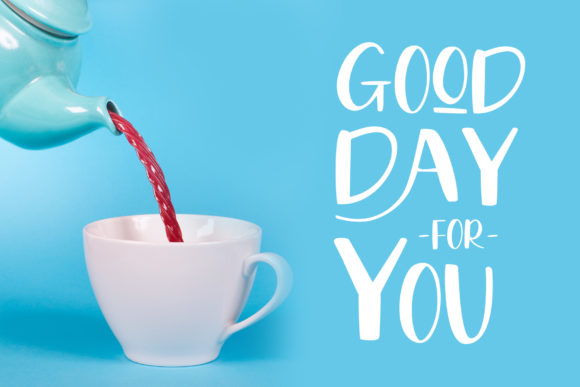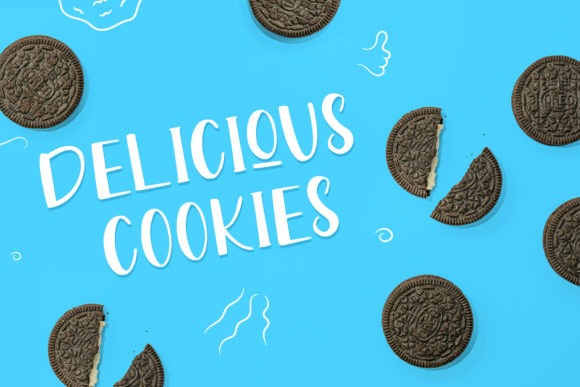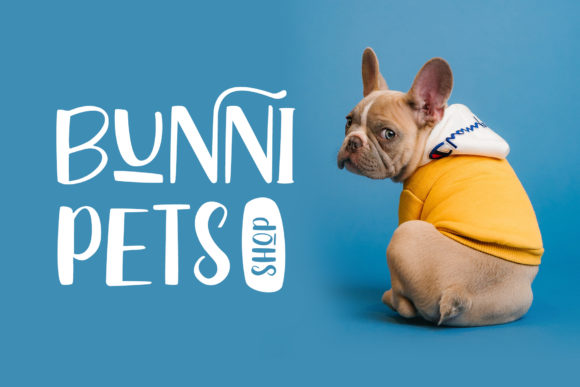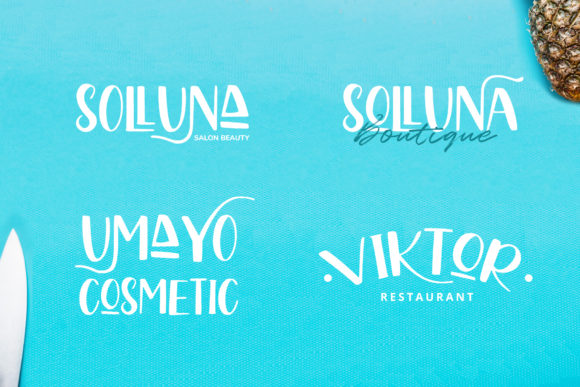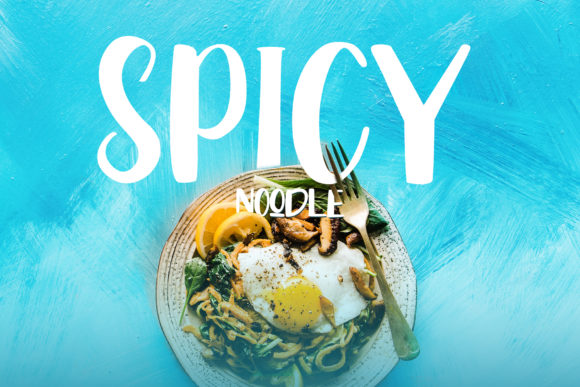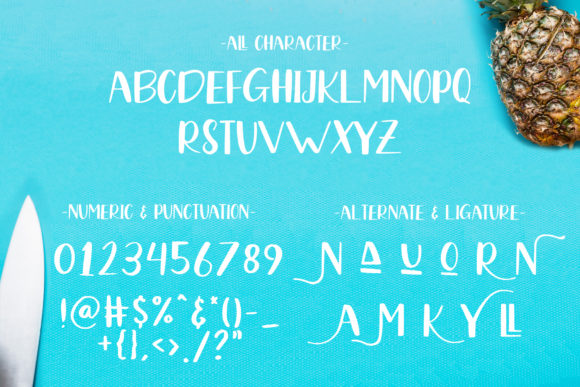
Introduction to Rollena Font
Have you ever stared at a blank canvas, waiting for the perfect font to spark your creative project? For designers, finding that elusive font can be a game-changer. It’s the difference between a good design and a great one. And that’s exactly what the Rollena Font offers – a chance to elevate your work and make it truly stand out.
With its friendly feel and versatility, the Rollena Font is a valuable design resource for any creative project. Whether you’re working on a logo, brochure, or social media campaign, this font is sure to bring a touch of personality to your design. Plus, with its transparent background and high-quality design, you can trust that it will look great in any context.
Key Features of Rollena Font
- High-quality design resource perfect for creative projects
- Comes with a transparent background, ideal for overlaying on images
- Features a unique, modern design with a bold and elegant feel, suitable for various creative projects
- Designed with a high resolution, ensuring crisp and clear text display even at larger font sizes
Honest Review: Rollena Font
As a designer, I’m always on the lookout for high-quality design resources that can elevate my creative projects. I recently had the chance to try out the Rollena Font, and I’m excited to share my honest review with you.
- Unique and elegant design: The Rollena Font has a distinctive, hand-drawn feel that adds a touch of sophistication to any design.
- High-quality font files: The font files are crisp and clear, making it perfect for use on both digital and print projects.
- Transparent background: The font has a transparent background, which makes it easy to layer over other design elements.
- Limited character set: The Rollena Font only includes a limited character set, which may not be suitable for complex text-based projects.
- No bold or italic styles: The font only comes in regular weight, which may not be enough for some design projects.
Overall, I’m impressed with the Rollena Font’s unique design and high-quality files. While it may have some limitations, it’s an excellent resource for designers who want to add a touch of elegance to their creative projects. With its free download and transparent background, it’s a great choice for designers on a budget.
Common Use Cases for Rollena Font
Rollena Font is a versatile design resource that can be used in a variety of creative projects, including logos, business cards, and marketing materials. It’s also a great choice for designers who want to create a high-quality, professional-looking design with a free download.
Q: Is the Rollena Font suitable for high-resolution printing?
Yes, the Rollena Font is designed to be highly legible and suitable for use in high-resolution printing applications. It supports a wide range of font sizes and styles, making it an excellent choice for business cards, brochures, and other print materials.